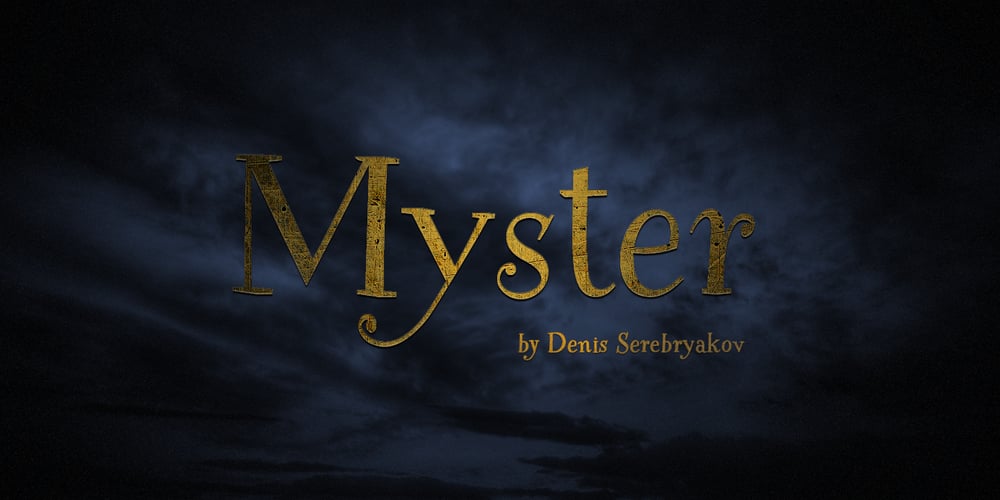
Myster Font Family was designed by Denis Serebryakov and published by Serebryakov. Myster contains 3 styles and family package options. Myster is a truly random font — each lowercase letter has three alternatives, that interchange in the set. This makes Myster look alive, hand-crafted, painted for a special occasion, rather than a font selected from a regular type case… Of course, the mystical character of the font defines the scope of its usage — film, gaming and publishing industries. However Myster’s field of application goes beyond them. This font is able to create a desired atmosphere in packaging, children books, magazines, as well as in advertising.